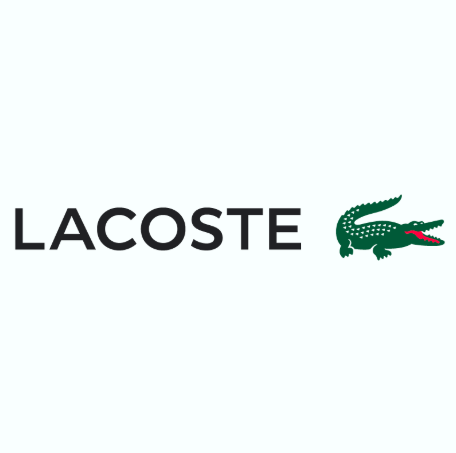
The Lacoste font, designed by Christophe Badani, is renowned for its association with the iconic Lacoste brand. Known for its elegance and simplicity, this font is prominently featured in the Lacoste logo, which is instantly recognizable by its crocodile emblem.
Similar Fonts to Lacoste Font
If you’re looking for fonts that bear a resemblance to the Lacoste font, here are some noteworthy alternatives:
Giga Sans Semi Bold
Designer: Arwan Sutanto
Publisher: Locomotype
Features: This font offers a modern and clean look, making it suitable for various design projects requiring a bold and contemporary typeface.
Montserrat
Designer: Julieta Ulanovsky
Features: A versatile and popular font, Montserrat is 100% free and provides a geometric and friendly style, ideal for both headings and body text.
Katahdin Round
Designer: Tyler Finck
Year: 2014
Features: Katahdin Round stands out with its rounded edges, providing a softer and more approachable feel while maintaining a professional appearance.
LaCoste by Masa Aska Sanurumi
Note: This font shares the same name but is different from the one designed by Christophe Badani.